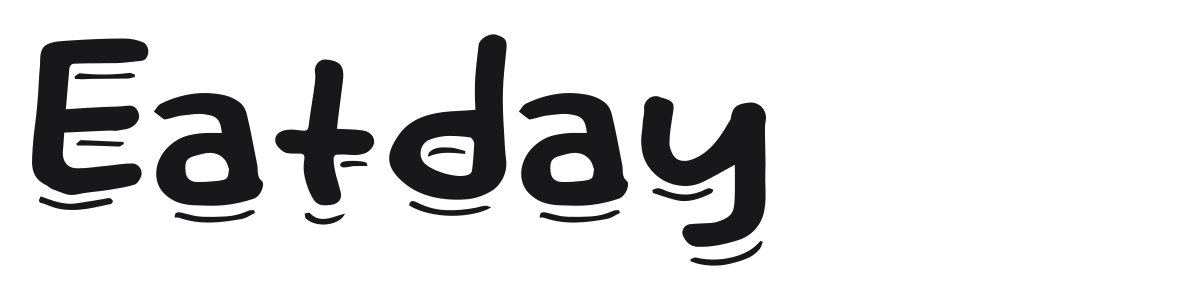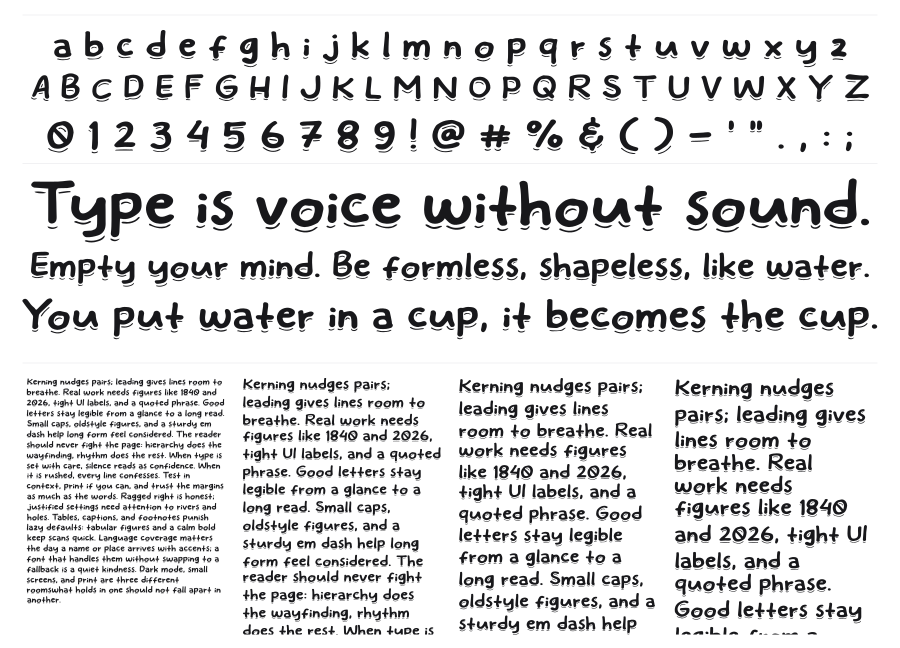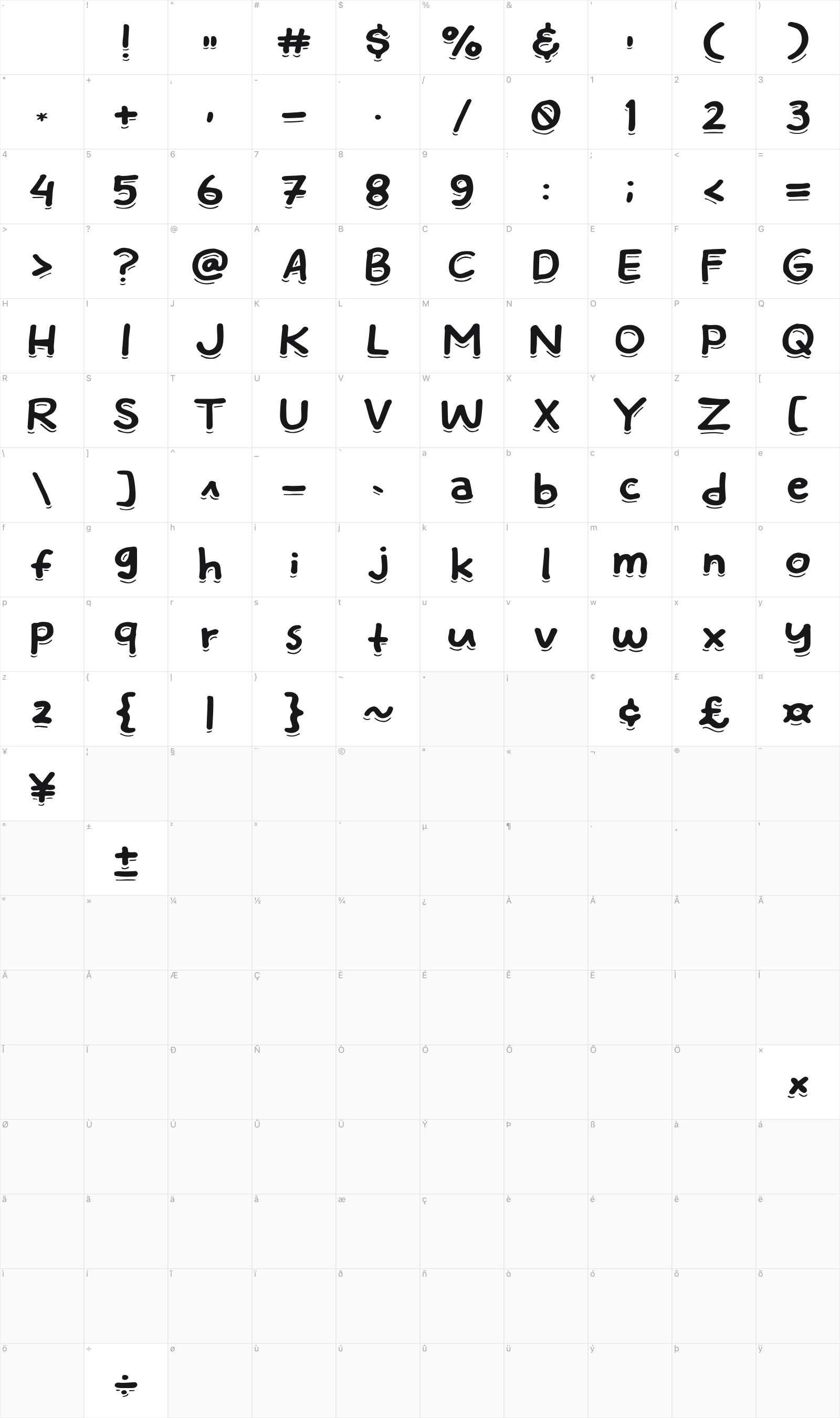
Eatday
Eatday is a chunky, hand-drawn rounded display font with thick strokes and a loose, bouncy character. The slight irregularity in the outlines gives it a spontaneous, marker-drawn feel that reads as genuinely fun rather than forced. It suits food branding, kids' content, and any headline that needs warmth and personality.